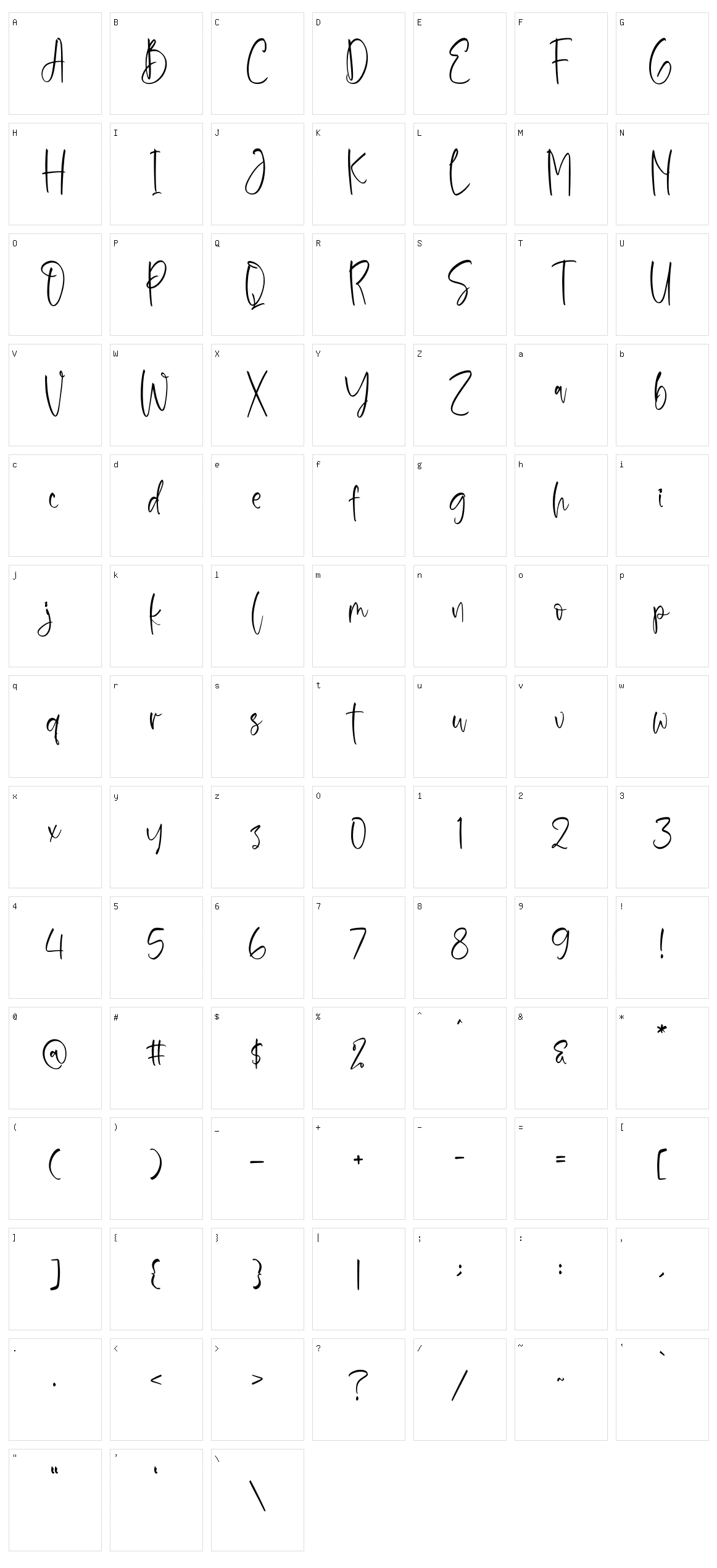
The free font Sanford Veganzone is carefully designed by Letterena Studios, showcasing a thoughtful balance of creativity and usability and falls under the Script font style. When you download the ZIP file, it contains only 43.1 KB of font files, making it lightweight and quick to download. Please review the license details below to understand permitted usage and distribution rights. If license information is not available, we recommend using this font for personal projects only or contacting the author directly for commercial usage permissions.